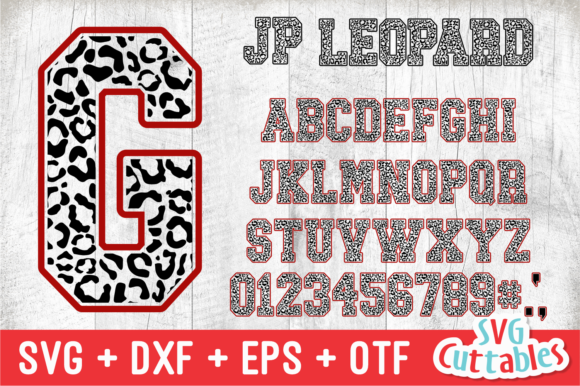
Introducing JP Leopard, the best font for college designs! Created by the expert team at SVG Cuttables, this cool and uniquely designed decorative font is perfect for adding a touch of fun and creativity to your design projects.
With its eye-catching and bold appearance, JP Leopard is sure to grab the attention of your readers and keep them engaged. Whether you're designing a poster, a flyer, or even a website, this font is guaranteed to make your work stand out from the crowd.
But what really sets JP Leopard apart is its versatility. This font looks amazing on a variety of design ideas, making it the perfect choice for anyone looking to add a bit of personality and flair to their creations. Whether you're a professional designer or just getting started, JP Leopard is the ideal font for taking your designs to the next level.